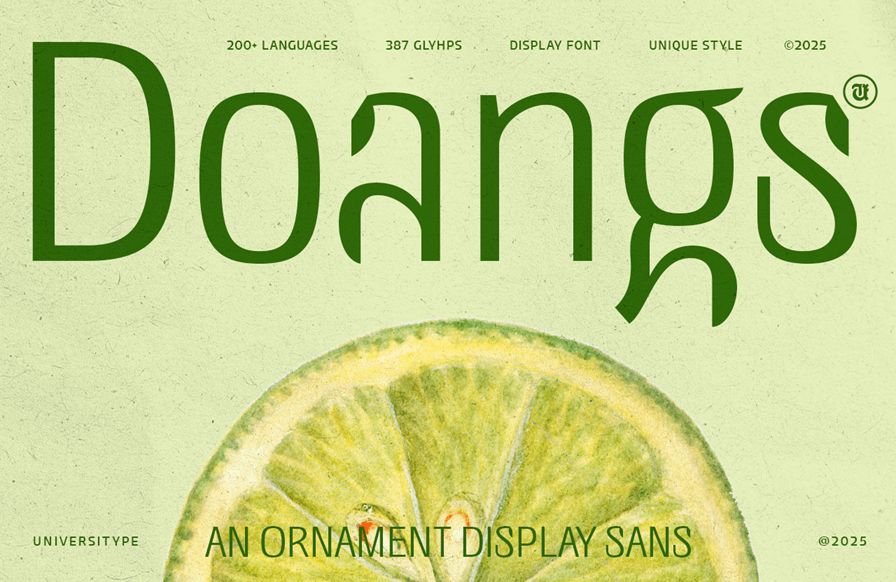
UT Doangs - An Ornament Display Font
UT Doangs is an expressive display typeface inspired by industrial sculpture. Abstract yet poetic, it translates the soft curves of steel into typographic form.